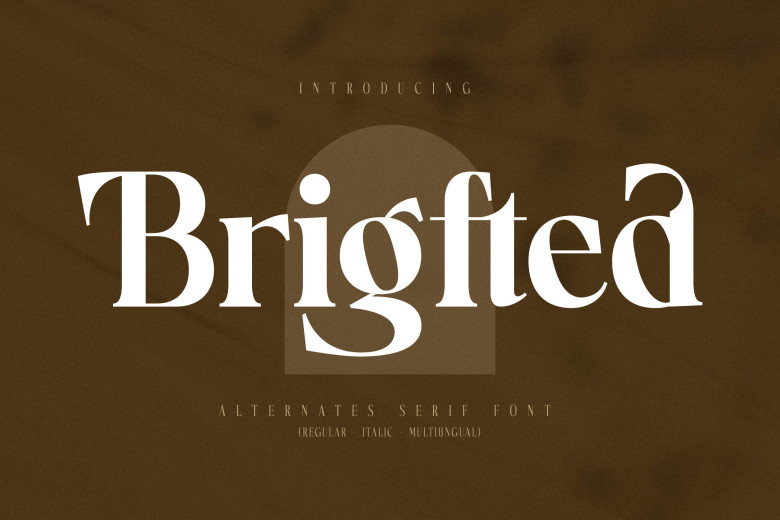
Brigfted Font
Brigfted is a modern serif font with distinctive style and modern appeal, ideal for creating sophisticated logos, movie or book covers, clothing labels and fashion label clothing lines, magazines letters and quotes and much more.
Brigfted Serif Font